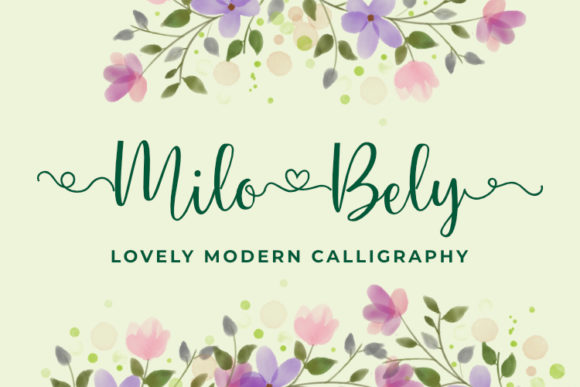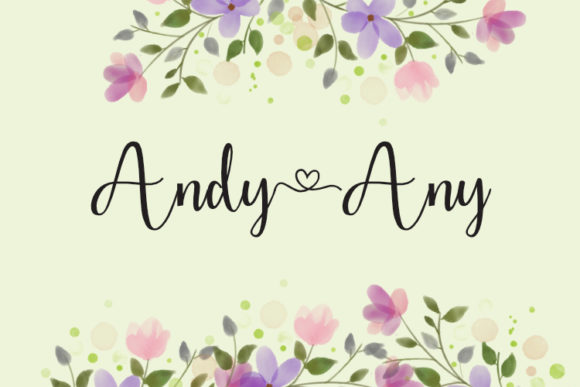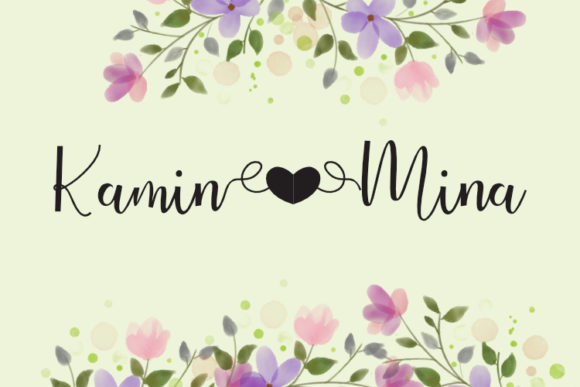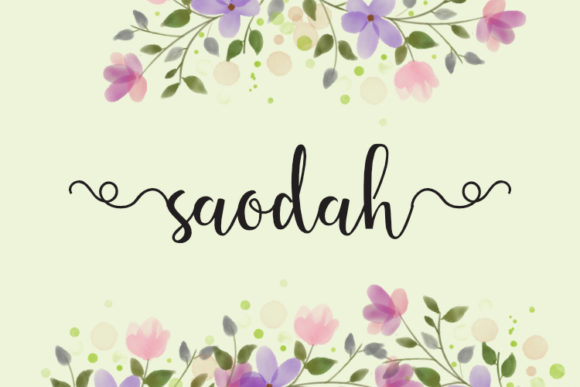
MiloBely Font
About MiloBely Font
MiloBely is a modern and lovely handwritten font with an incredibly friendly feel. Use this amazing and unique font to bring any DIY project to life!